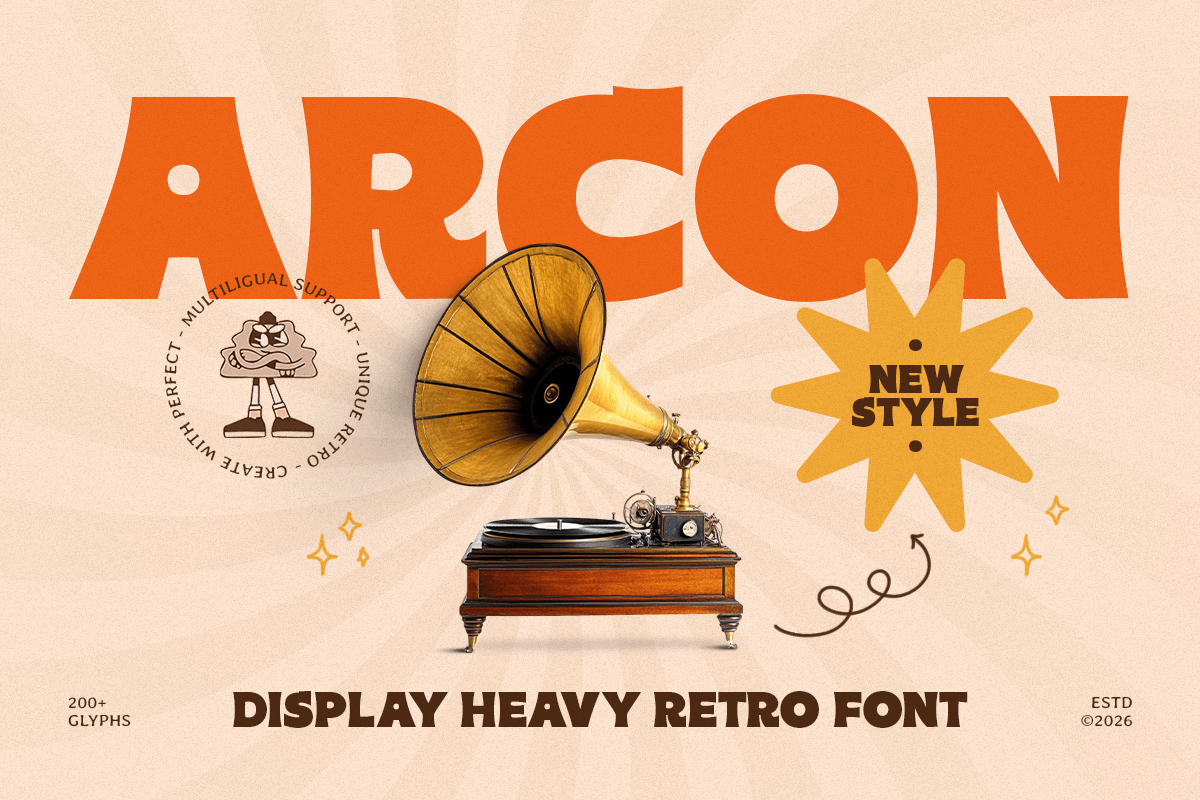
Arcon
-Display Heavy Retro FontArcon - Display Heavy Retro Font
ARCON is a display heavy retro font designed to bring bold vintage energy and striking personality to your typography. With thick letterforms, classic retro influence, and a strong visual rhythm, this typeface creates a nostalgic tone that feels powerful, expressive, and instantly eye-catching.
Built for statement-making design, ARCON works beautifully across logos, wordmarks, posters, packaging, labels, signage, event graphics, website headers, editorial titles, and social media visuals. Its heavy display structure gives every headline maximum impact while preserving clarity across both digital and print layouts.
Whether you’re building a retro-inspired brand identity, designing bold promotional visuals, crafting vintage packaging, or creating nostalgic headline typography, ARCON provides a heavy display foundation that makes your designs feel memorable, energetic, and full of timeless character.
Inspiration Behind ARCON
ARCON is inspired by classic retro signage and vintage display typography—where bold shapes, thick strokes, and nostalgic rhythm define unforgettable visual identity. The design focuses on strong structure and old-school character to support branding and headline design with a confident retro presence.
ARCON Font Features:
Heavy retro display letterforms with bold vintage character
Perfect for logos, posters, branding, and headline typography
Strong visual impact for nostalgic and statement-driven layouts
High readability with thick strokes and confident structure
Retro logos, vintage wordmarks, and nostalgic brand identity systems
Posters, signage, and bold promotional campaigns
Packaging, labels, and classic product branding
Editorial titles, website headers, and statement headlines
Social media graphics and vintage-inspired marketing visuals
Bring bold nostalgic power to your designs with ARCON—a heavy retro display font made for timeless visual impact. ✨